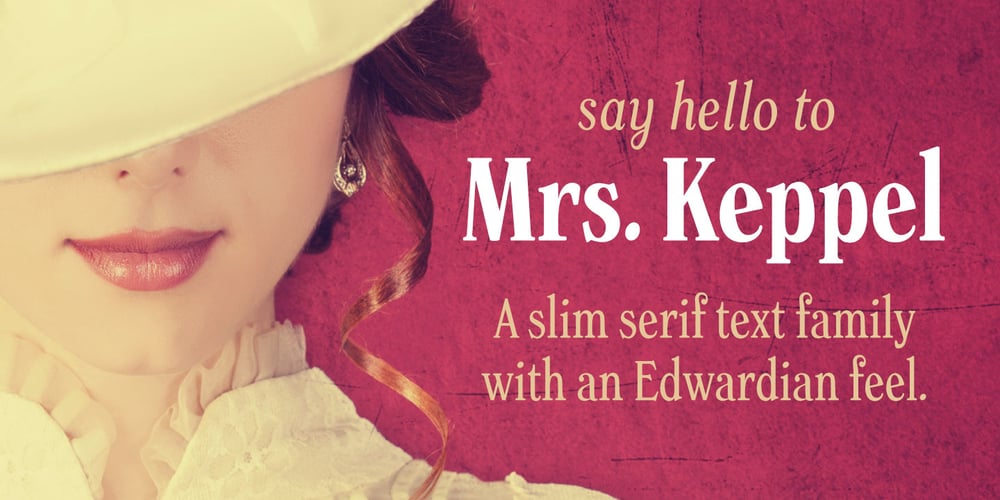
Mrs Keppel Font Family was designed by DC Scarpelli and published by The Ampersand Forest. Mrs Keppel contains 12 styles and family package options. Remember when you first saw the credits of a Woody Allen movie and thought, “I love that typeface!” Well, maybe that was just us. That typeface—Windsor (specifically Windsor Light Condensed)—is a classic. But it has problems. The letterforms are sometimes REALLY wonky. And the ampersand is a tragedy. Plus, there’s no italic, and the weights and widths available in digital form are a hodgepodge. That’s where Mrs. Keppel comes in. Alice Keppel, one of the most famous illegitimate members of the Windsor household ever, lends her name to this typeface family with numerous weights and a true italic. It’s a slim serif with Edwardian leanings. She’s approachable, she’s refined. She’s equally charming and at home in mercantile settings, in elegant settings, in populist settings, and in Polite Society. She’s a design response to a genuine need. She’s Mrs Keppel!